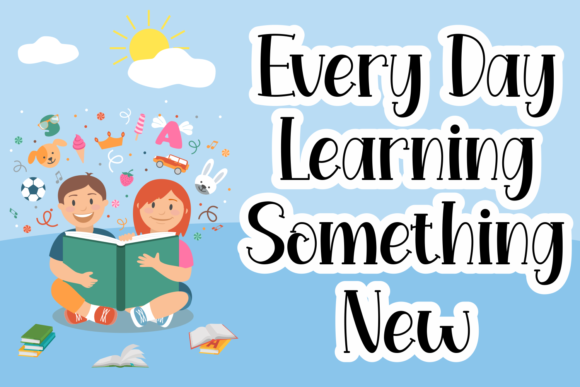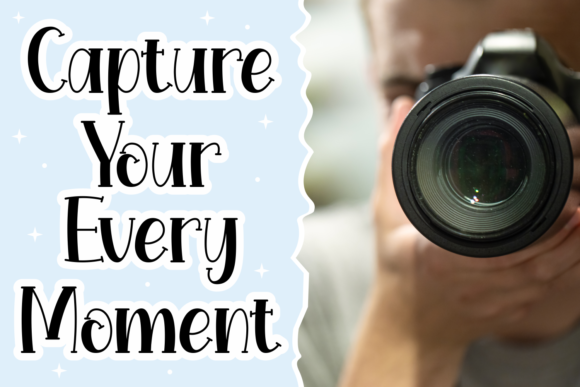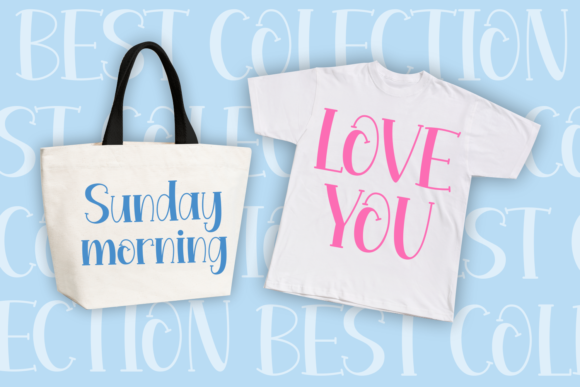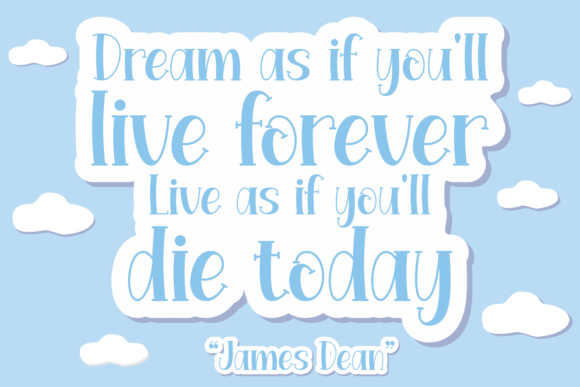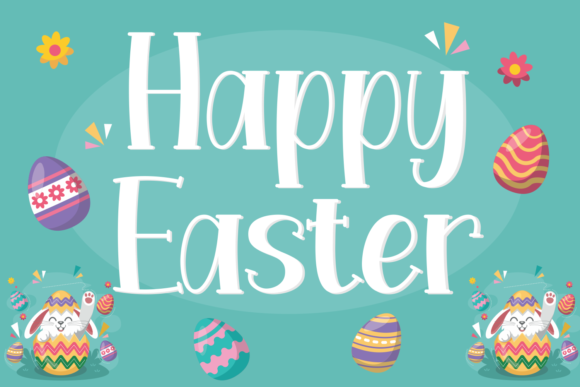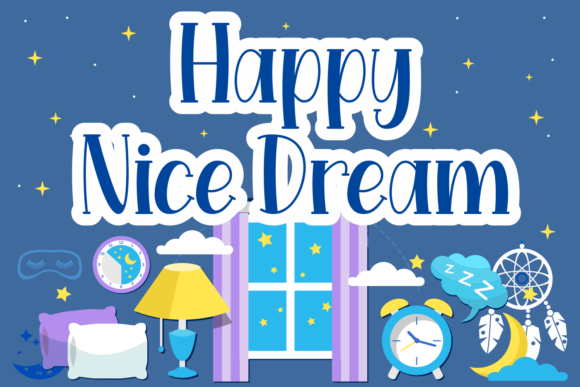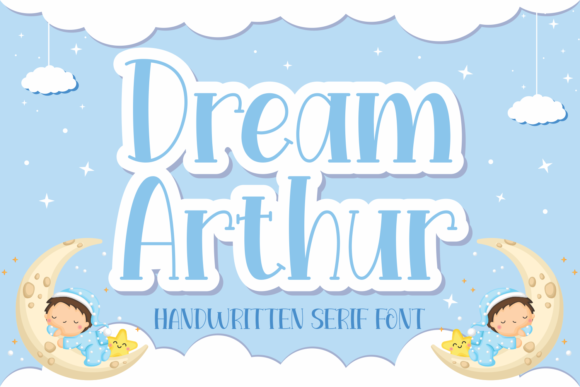
Dream Arthur Font: The Ultimate Choice for Friendly and Playful Designs
Are you tired of using the same old fonts for your designs? Look no further than the Dream Arthur font! This childish, easy-to-read display font is perfect for conveying impeccable friendliness in all your design projects. Whether you’re a designer, crafter, or simply someone who loves to create, Dream Arthur is sure to become your new go-to font.
What Makes Dream Arthur So Special?
Dream Arthur is a unique and charming font that stands out from the crowd. Its playful and whimsical design makes it perfect for a wide range of projects, from crafts and digital design to presentations and greeting cards. The font’s friendly and approachable feel makes it ideal for designs that need to convey a sense of warmth and approachability.
One of the best things about Dream Arthur is its ease of use. The font is incredibly easy to read, making it perfect for designs that need to communicate a message clearly and effectively. Whether you’re creating a poster, a social media graphic, or a handmade card, Dream Arthur is the perfect choice.
Dream Arthur is a versatile font that can be used in a wide range of design projects. Here are just a few ideas to get you started:
- Crafts: Use Dream Arthur to add a personal touch to your handmade crafts, such as cards, gift tags, and scrapbook pages.
- Digital Design: Create stunning social media graphics, blog posts, and website headers with Dream Arthur.
- Presentations: Add a touch of personality to your presentations with Dream Arthur.
- Greeting Cards: Create beautiful and heartfelt greeting cards with Dream Arthur.
Why Choose Dream Arthur?
So why choose Dream Arthur over other fonts? Here are just a few reasons:
- Unique and Playful Design: Dream Arthur has a unique and playful design that will make your designs stand out.
- Easy to Read: The font is incredibly easy to read, making it perfect for designs that need to communicate a message clearly.
- Versatile: Dream Arthur can be used in a wide range of design projects, from crafts to digital design.
- Conveys Friendliness: The font conveys a sense of friendliness and approachability, making it perfect for designs that need to be warm and welcoming.
How to Use Dream Arthur
Using Dream Arthur is easy! Here are a few tips to get you started:
- Pair with Other Fonts: Pair Dream Arthur with other fonts to create a unique and interesting design.
- Use in Headlines: Use Dream Arthur in headlines to add a touch of personality to your design.
- Use in Body Text: Use Dream Arthur in body text to create a friendly and approachable feel.
In conclusion, Dream Arthur is a fantastic font that is perfect for designers and crafters who want to add a touch of friendliness and playfulness to their designs. With its unique and playful design, ease of use, and versatility, Dream Arthur is sure to become your new go-to font. So why not give it a try and see the difference it can make in your designs?
Whether you’re creating crafts, digital designs, presentations, or greeting cards, Dream Arthur is the perfect choice. Its friendly and approachable feel makes it ideal for designs that need to convey a sense of warmth and approachability. So go ahead, get creative, and make Dream Arthur a part of your design journey!